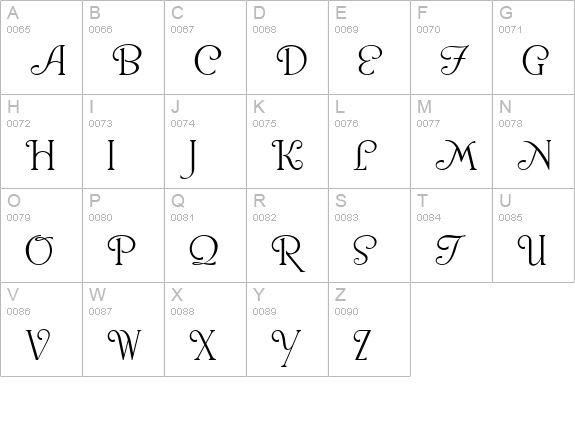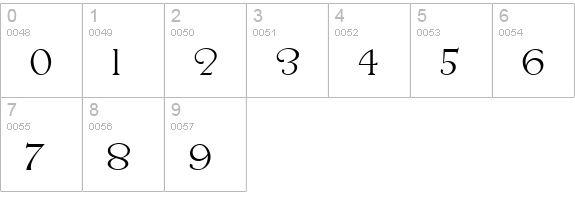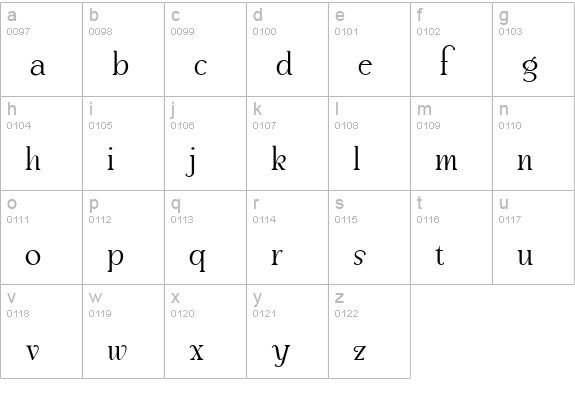
Snooty Fox NF Font Details
Introducing Snooty Fox NF, a whimsical and elegant font that will add a touch of sophistication to any design project. This typeface combines classic charm with a playful twist, making it perfect for invitations, logos, branding, and more. With its delicate curves and refined letterforms, Snooty Fox NF exudes an air of elegance and grace. Each character is meticulously crafted to ensure a seamless and harmonious flow, creating a visually pleasing aesthetic that is both captivating and timeless. The versatility of Snooty Fox NF is truly impressive. Whether you're designing a wedding invitation, a menu for a high-end restaurant, or a chic fashion blog, this font will effortlessly elevate your design to new heights. Its unique personality and attention to detail make it stand out among the crowd, ensuring a memorable and captivating visual experience. But what truly sets Snooty Fox NF apart is that it is available for free! Yes, you read that right. This exquisite font can be freely downloaded from FontsMarket.com, allowing you to add a touch of elegance to your designs without breaking the bank. We believe that everyone should have access to high-quality typography, and Snooty Fox NF is our way of making that a reality. So, whether you're a professional designer or a hobbyist looking to add a touch of sophistication to your creations, Snooty Fox NF is the perfect font for you. Download it for free at FontsMarket.com and unleash your creativity with this enchanting and versatile typeface.